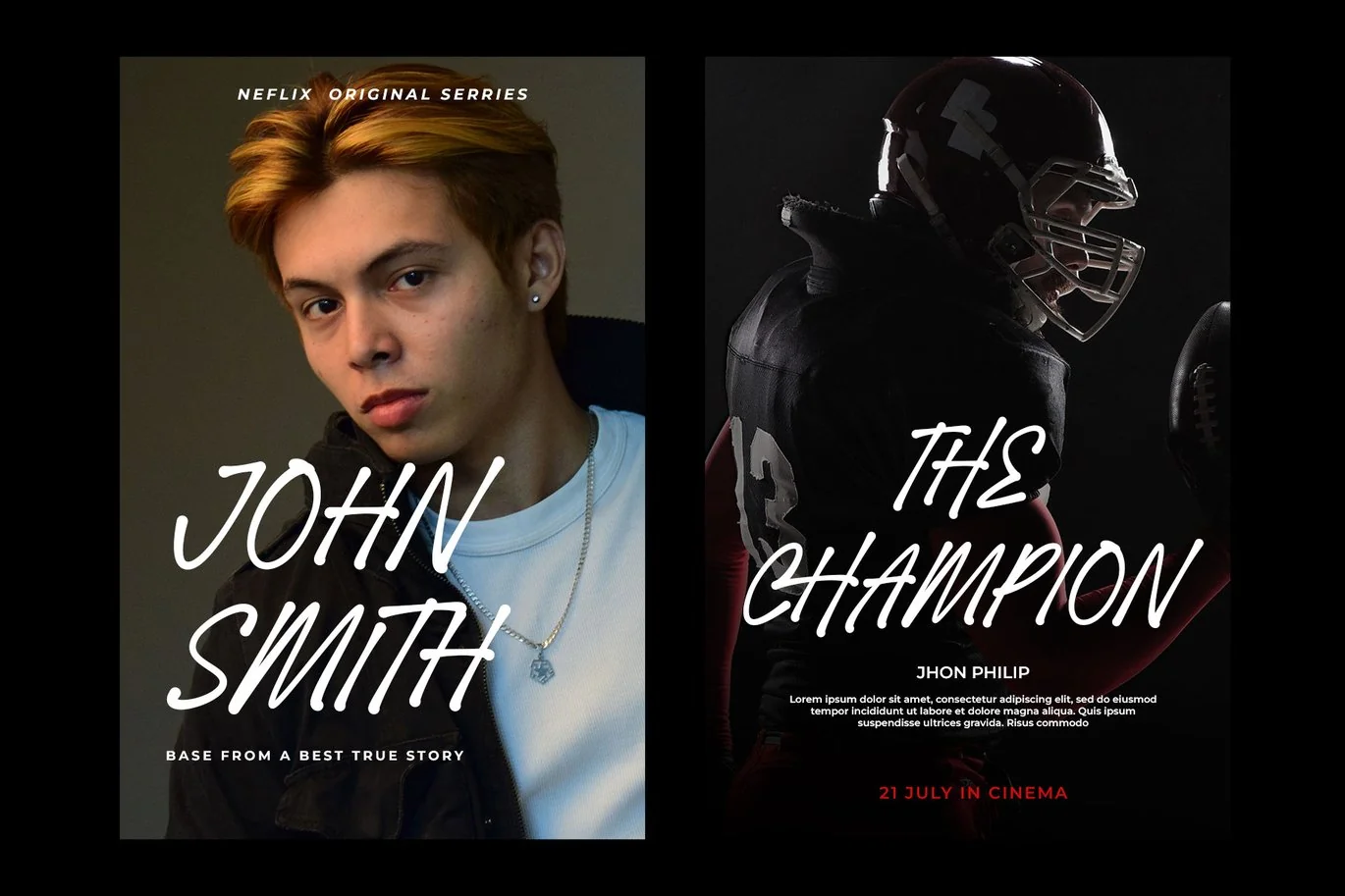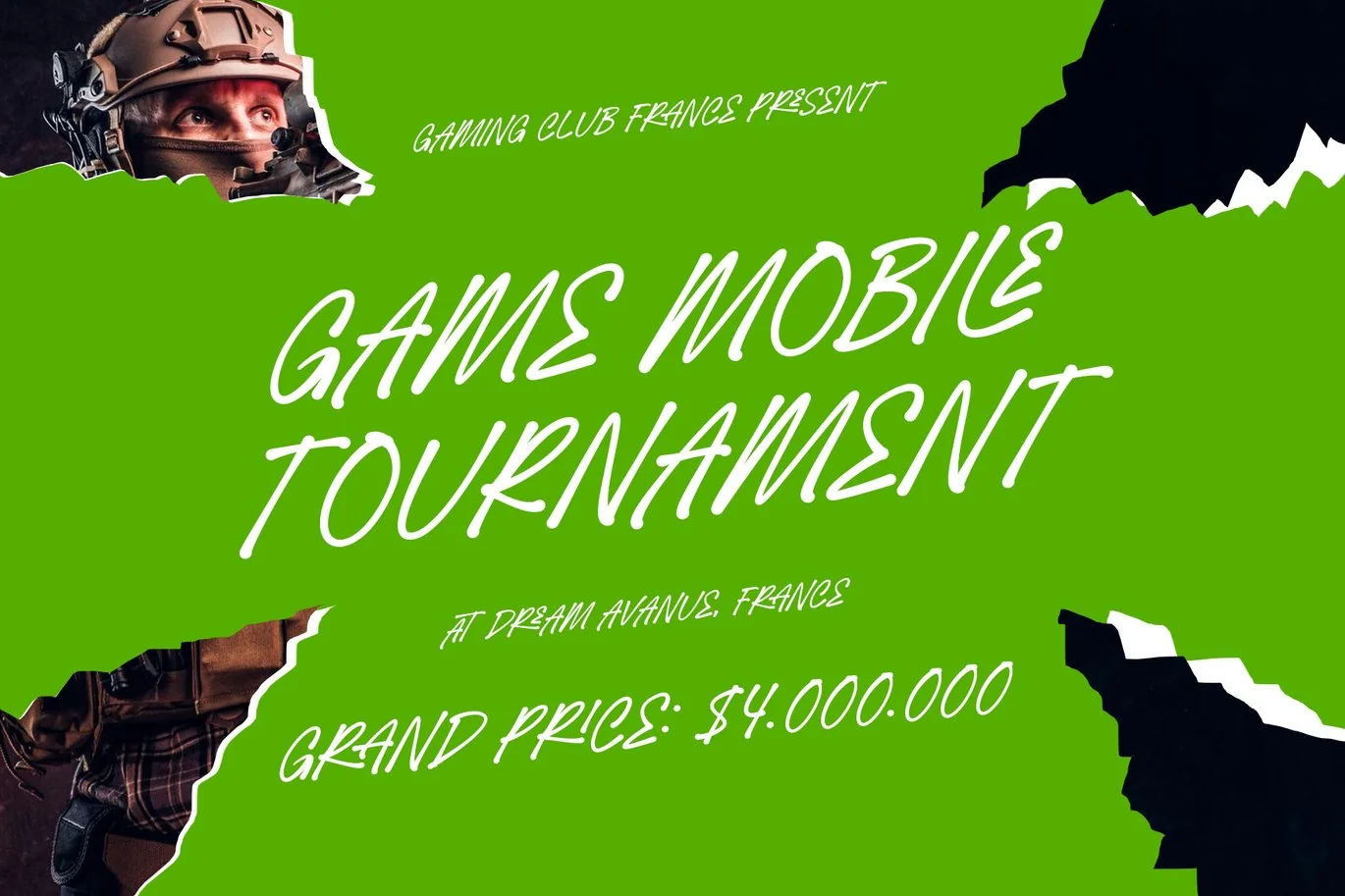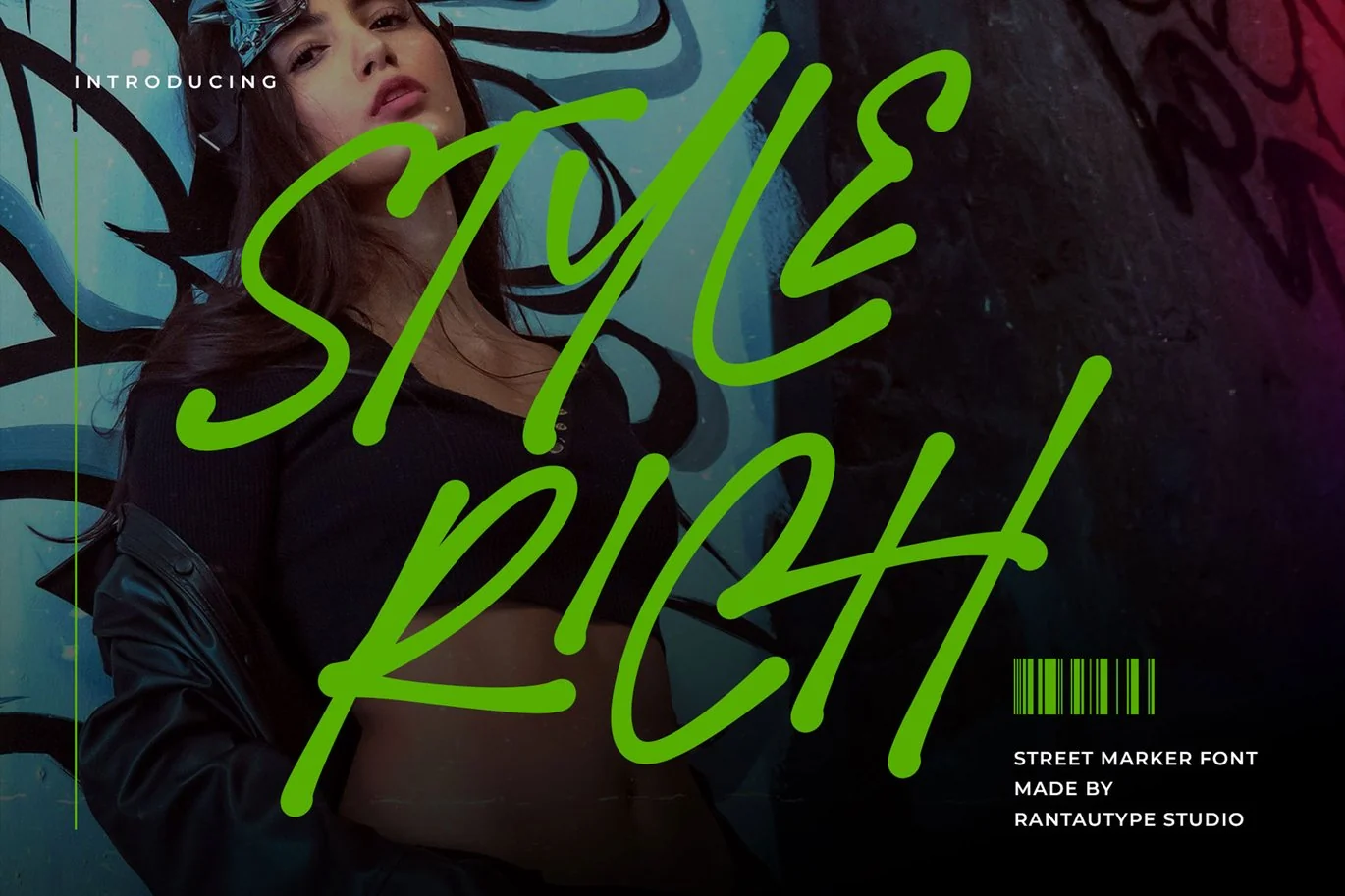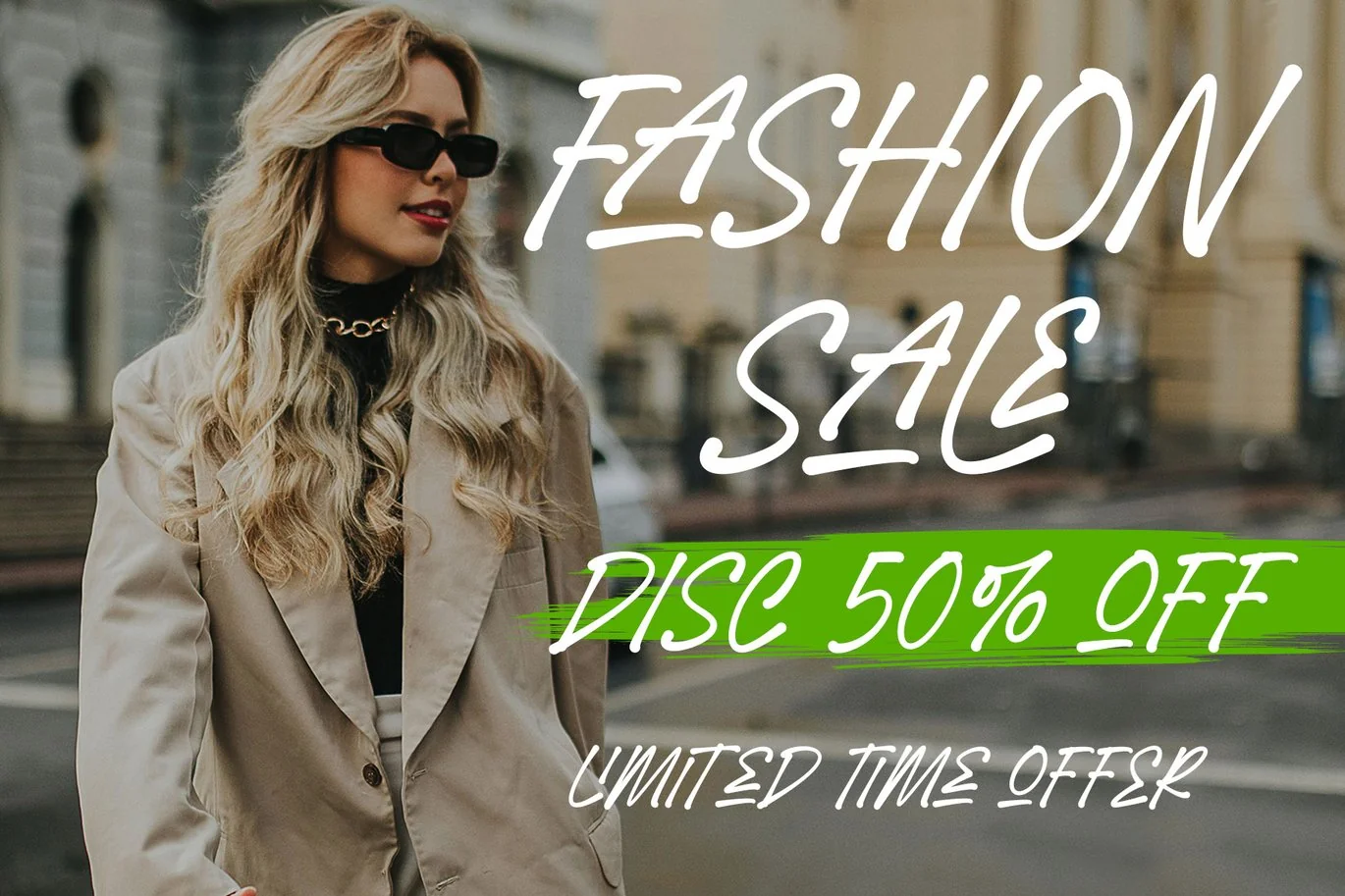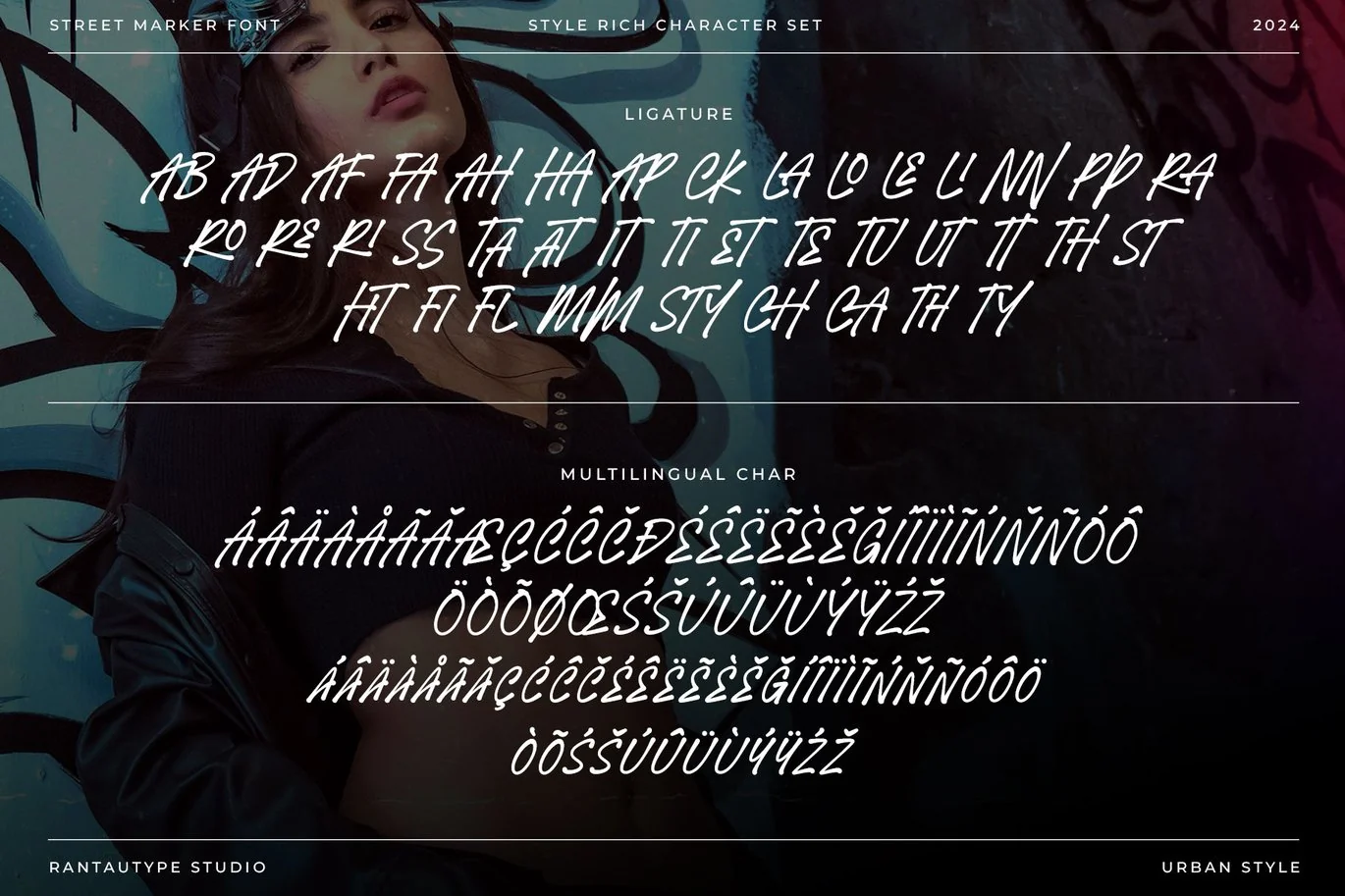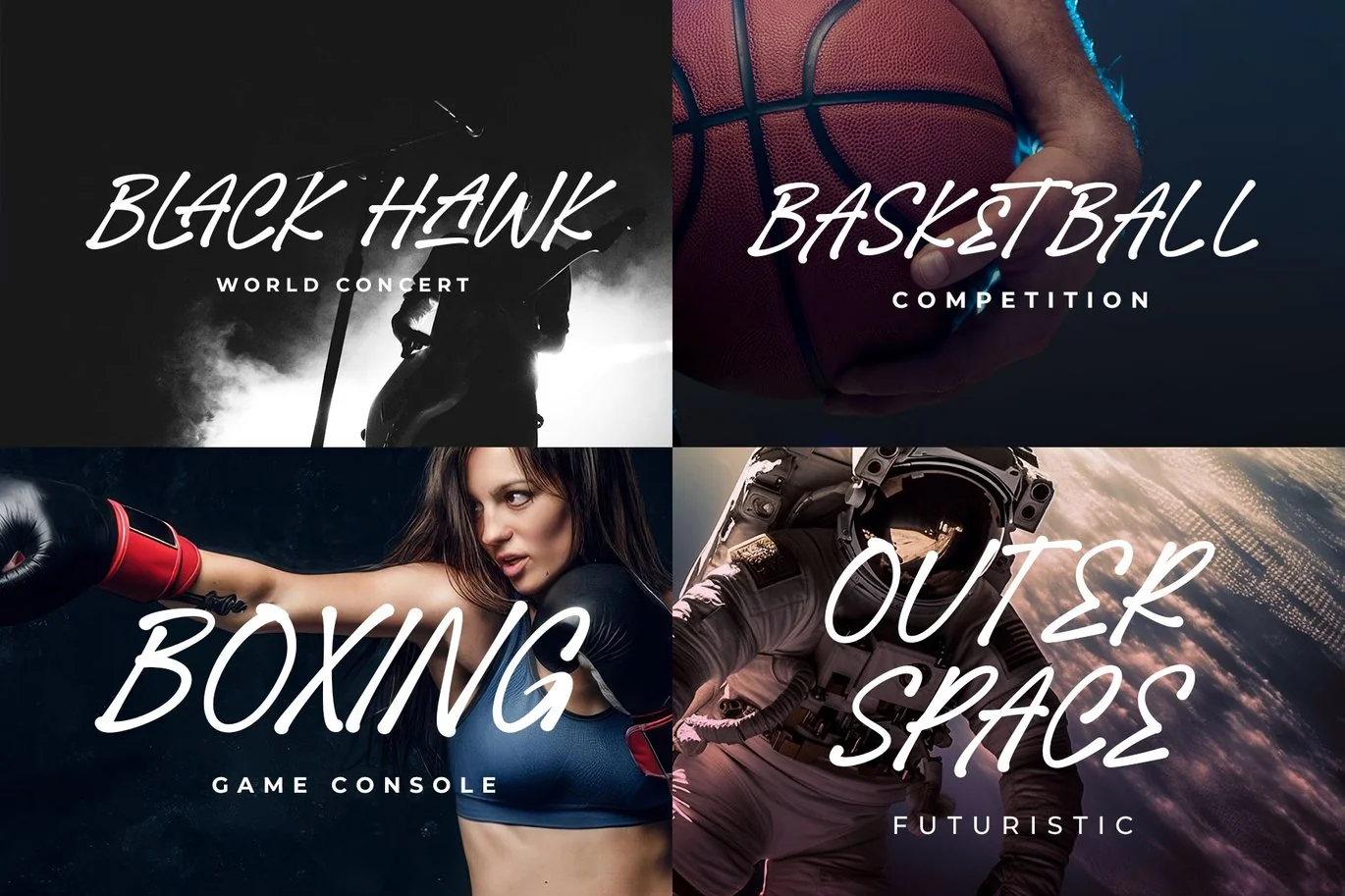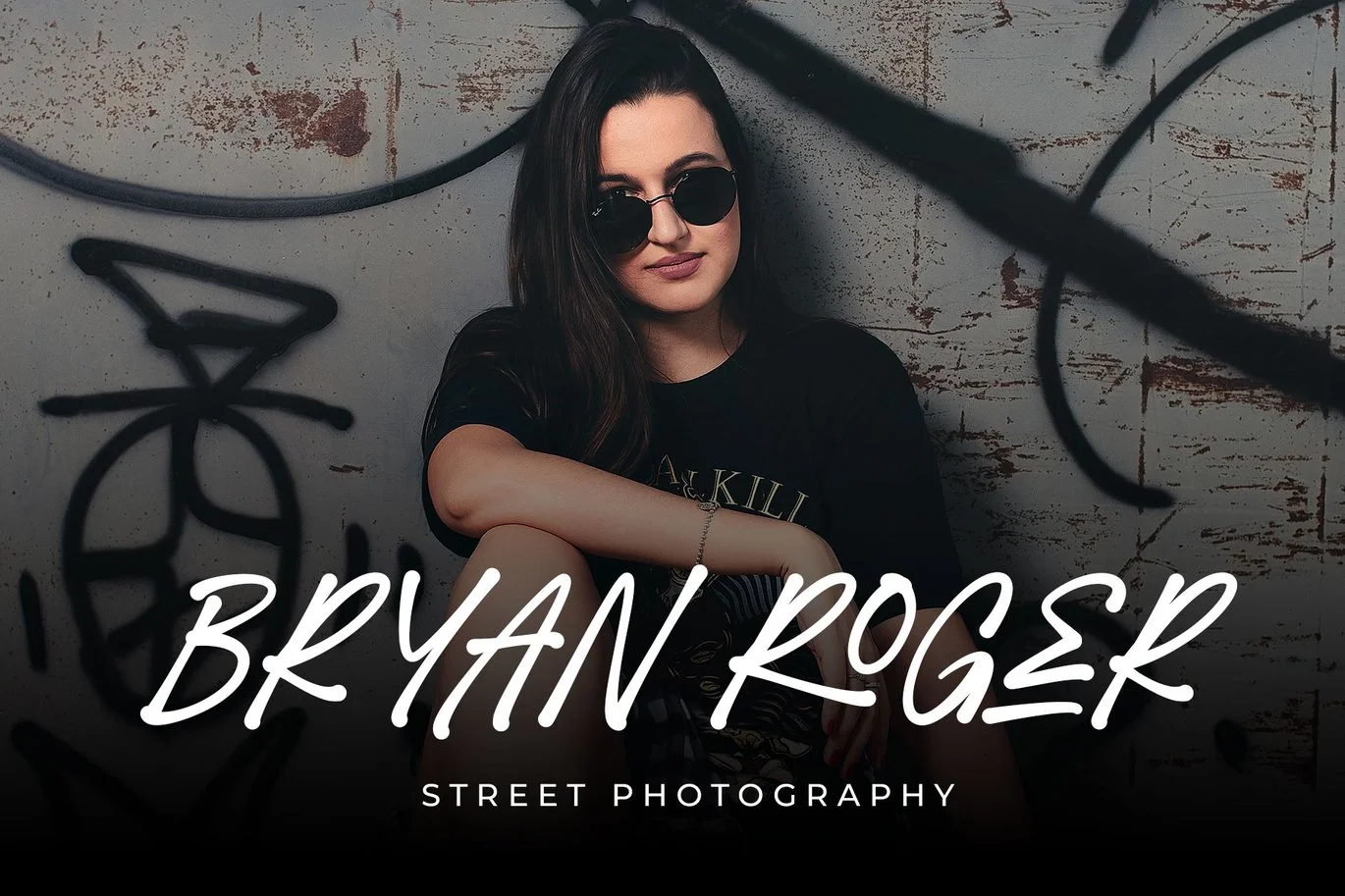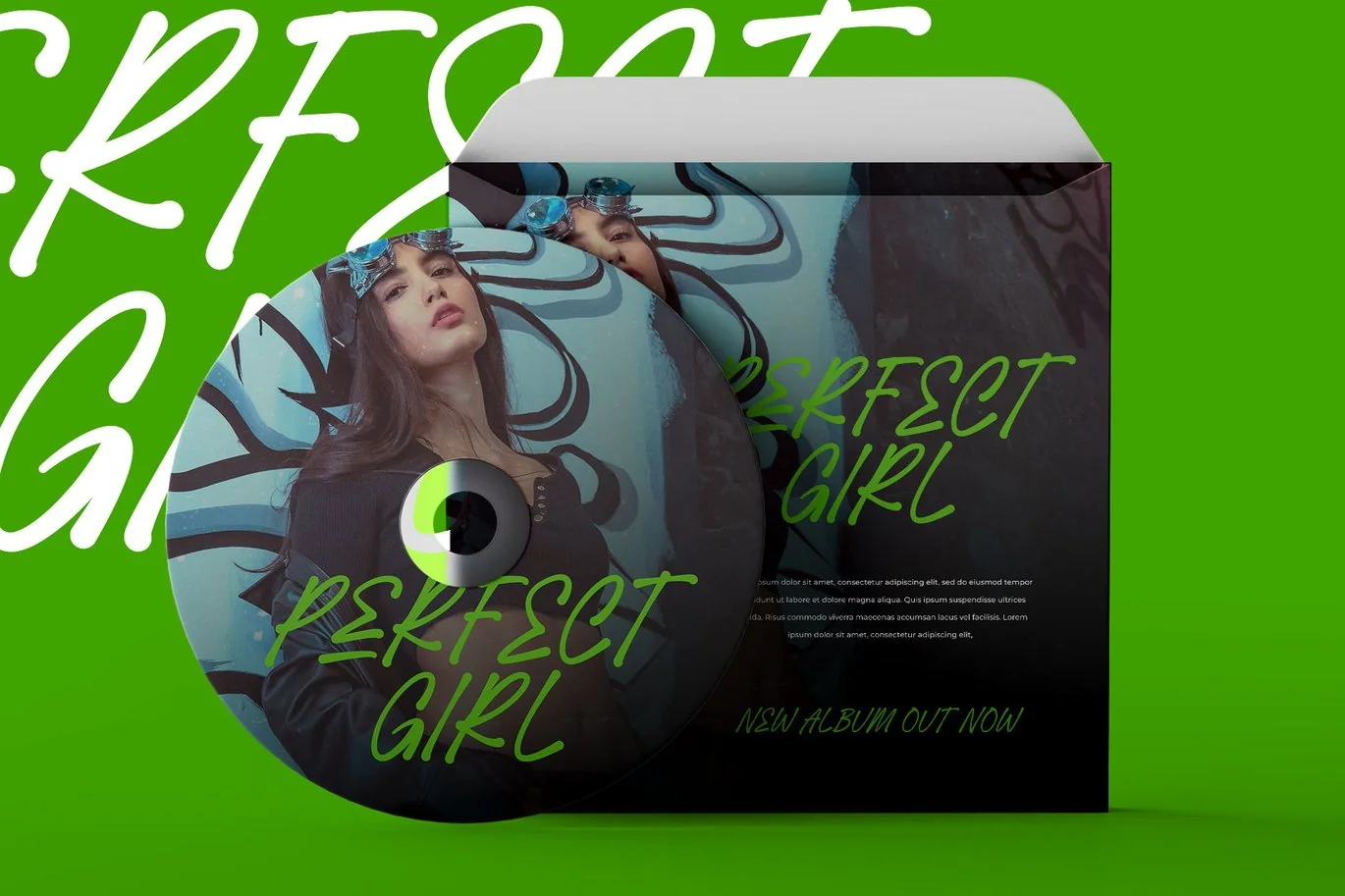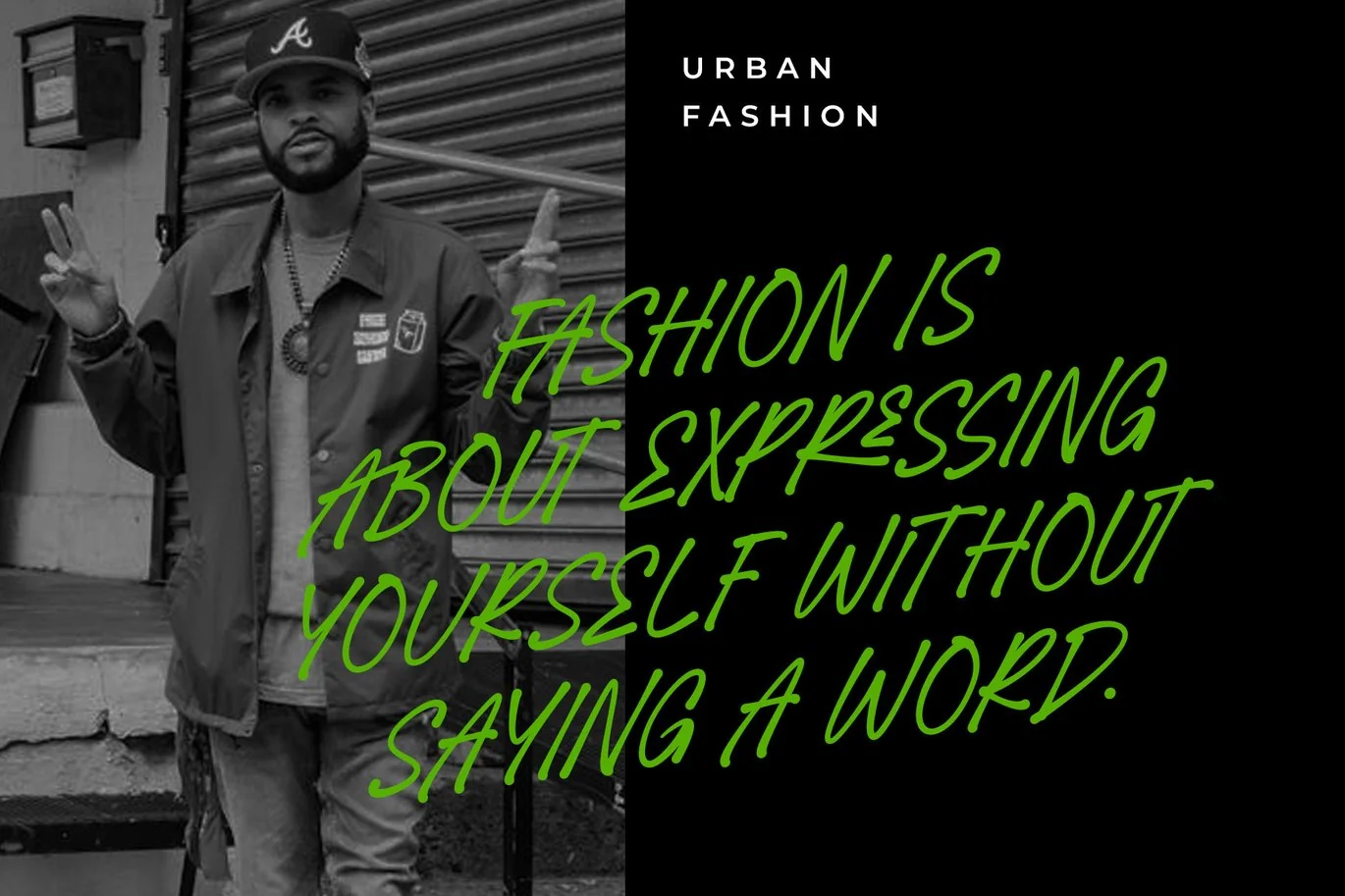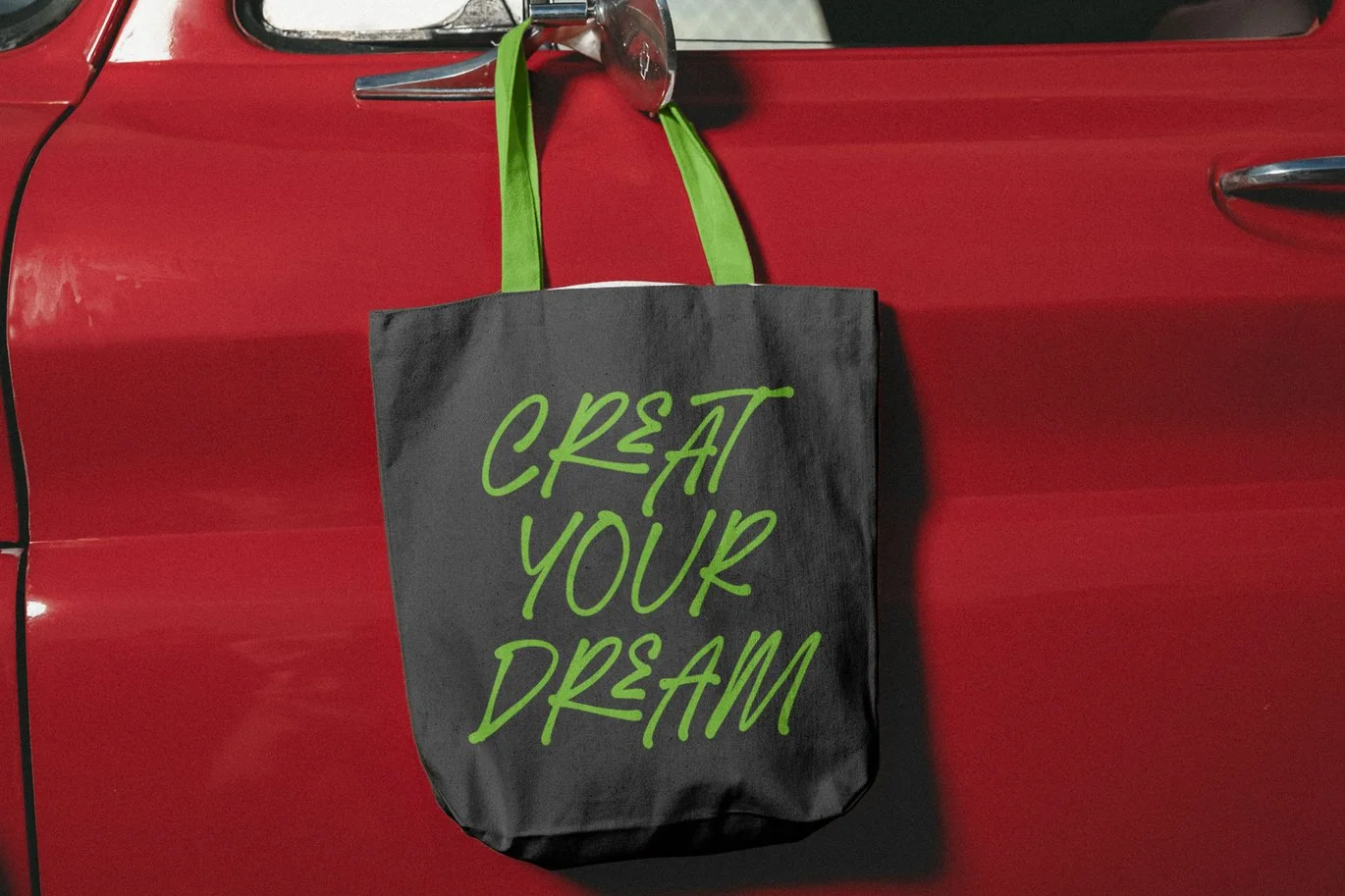
Style Rich Street Marker Font
Style Rich is marker street font inspire by aesthetic of graffity. Style Rich bring hand-brush and strong style to create a true street soul. Style Rich come with flow and dinamic shape give a unique touch and keep the spirit of street style.
Fonts include Multilingual Character for: Afrikaans, Albanian, Asu, Basque, Bemba, Bena, Breton, Chiga, Cornish, Dutch, English, Estonian, Filipino, Finnish, Friulian, Galician, Gusii, Indonesian, Irish, Italian, Kabuverdianu, Kalenjin, Kinyarwanda, Luo, Luxembourgish, Luyia, Machame, Makhuwa-Meetto, Makonde, Malagasy, Manx, Morisyen, North, Ndebele, Nyankole, Oromo, Portuguese, Quechua, Romansh, Rombo, Rundi, Rwa, Samburu, Sango, Sangu, Scottish, Gaelic, Sena, Shambala, Shona, Soga, Somali, Spanish, Swahili, Swedish, Swiss, German.